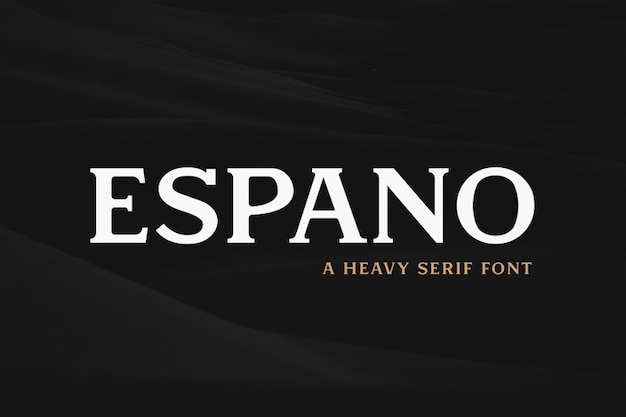
Espano Font
It is a font that seamlessly blends simplicity, classic elegance, and modern aesthetics. Its clean lines and timeless appeal make it a versatile choice for various design projects. Whether you're creating a sleek website, crafting a contemporary logo, or designing elegant invitations, "Espano" is your go-to font to strike the perfect balance between classic and contemporary design.